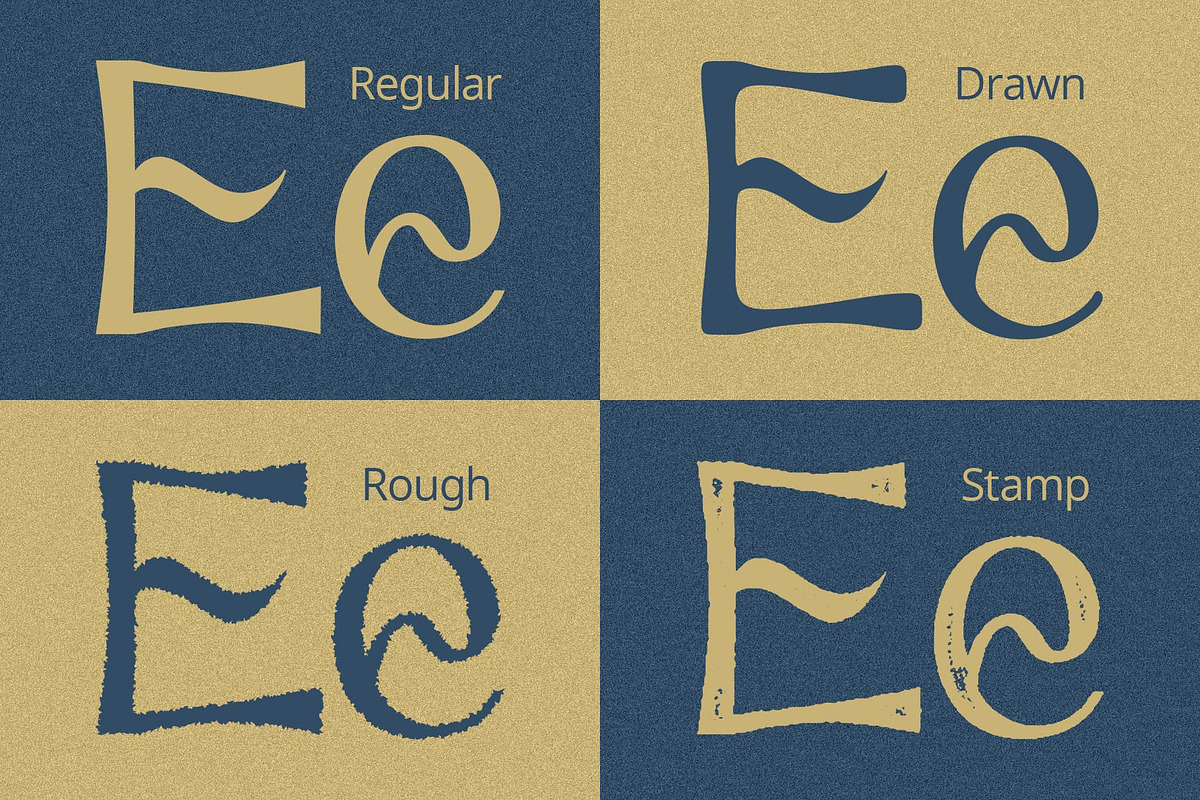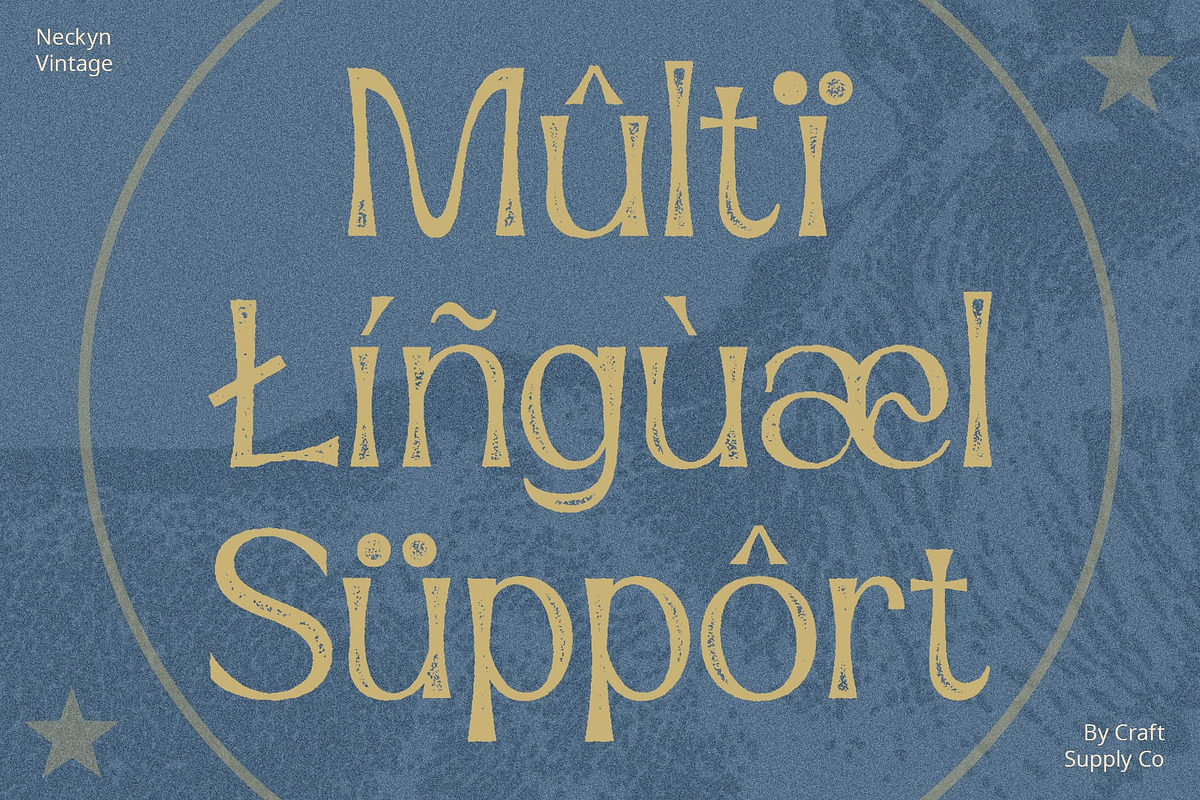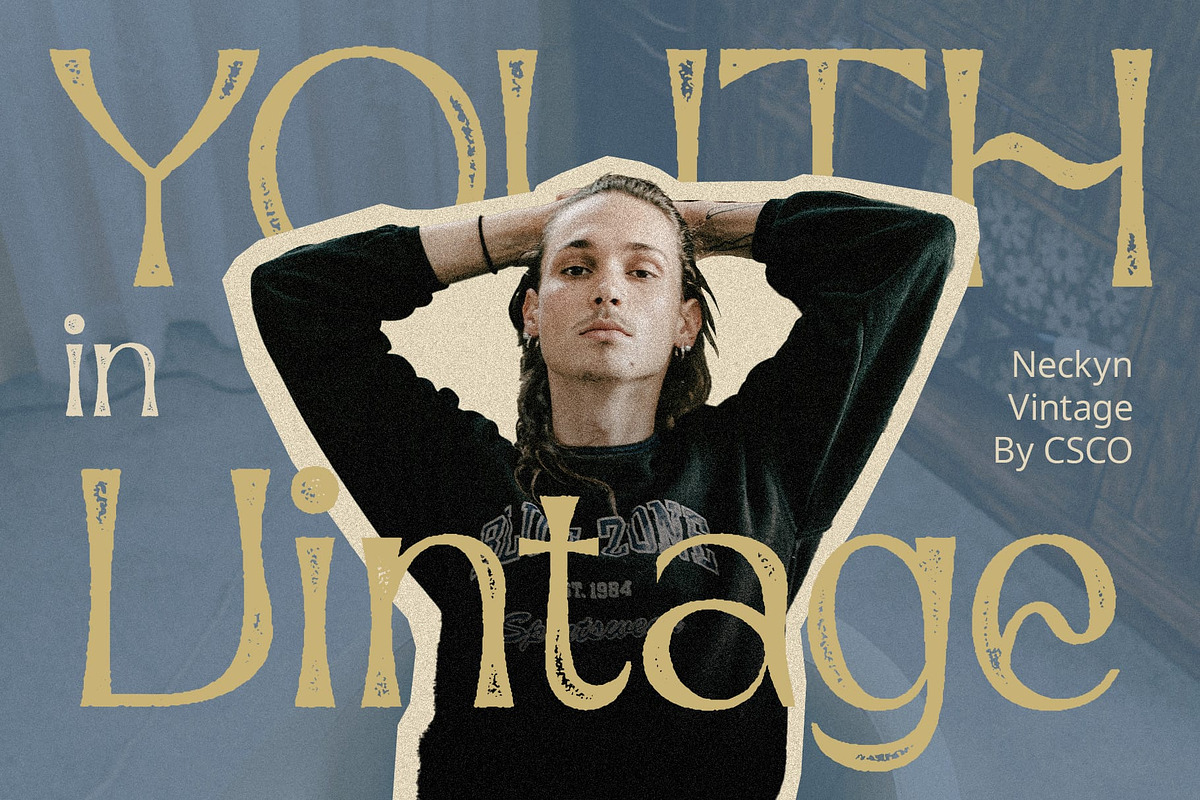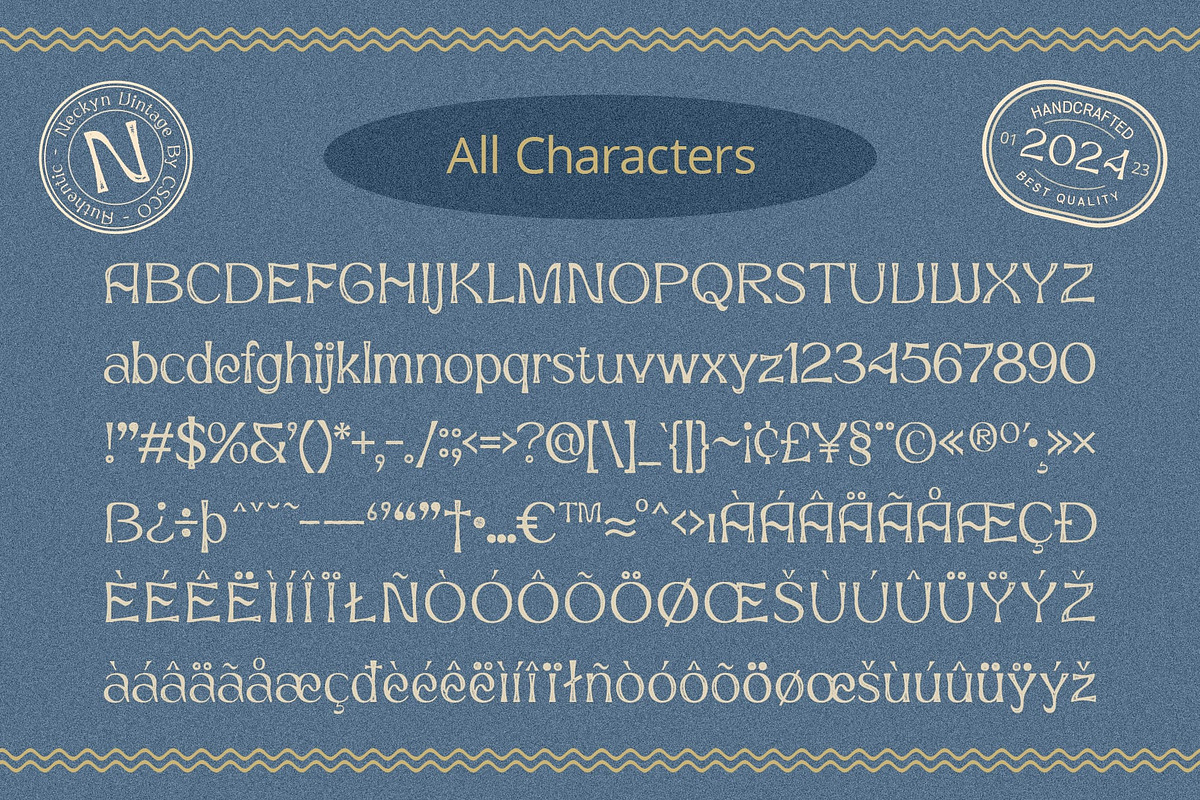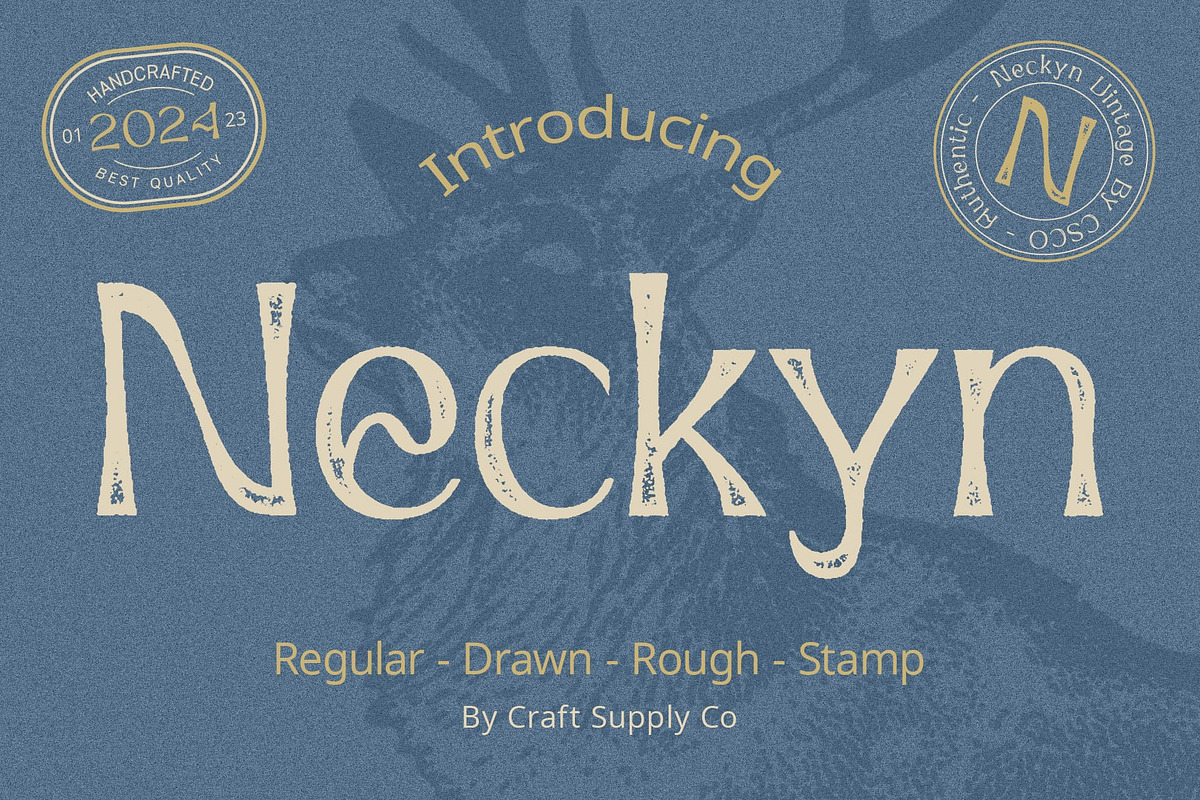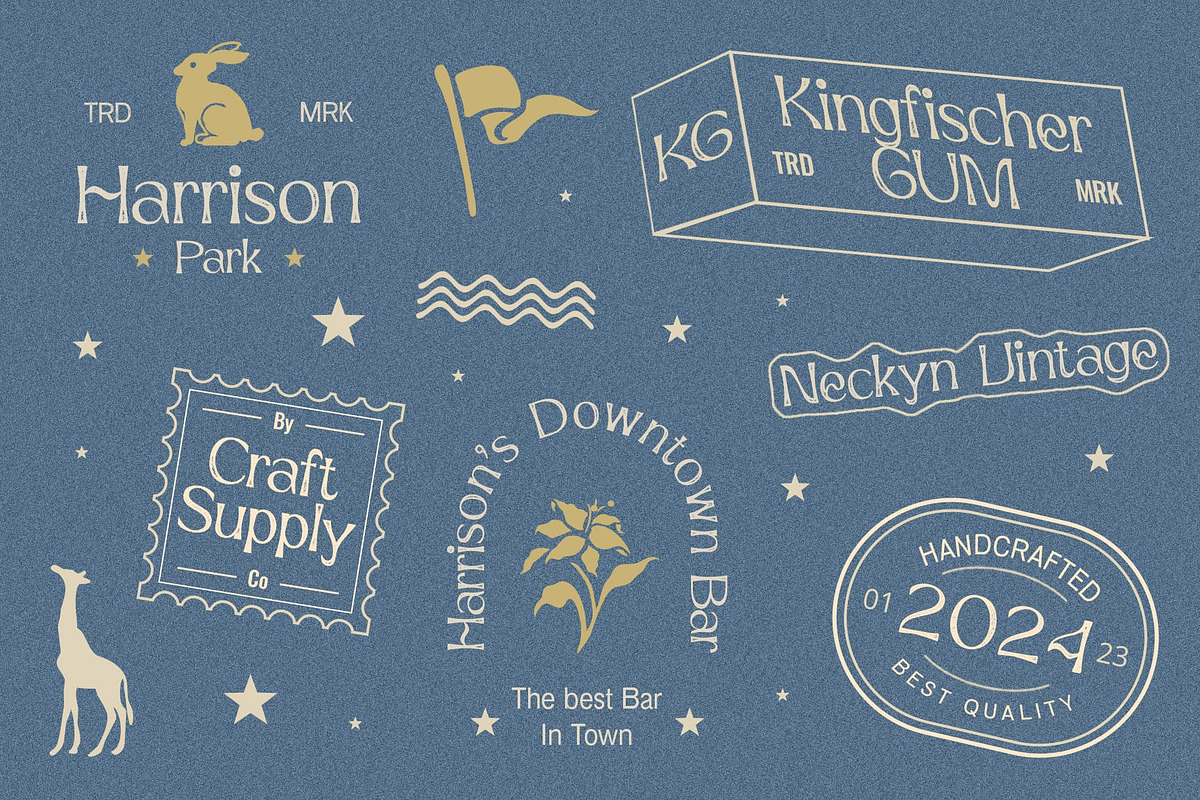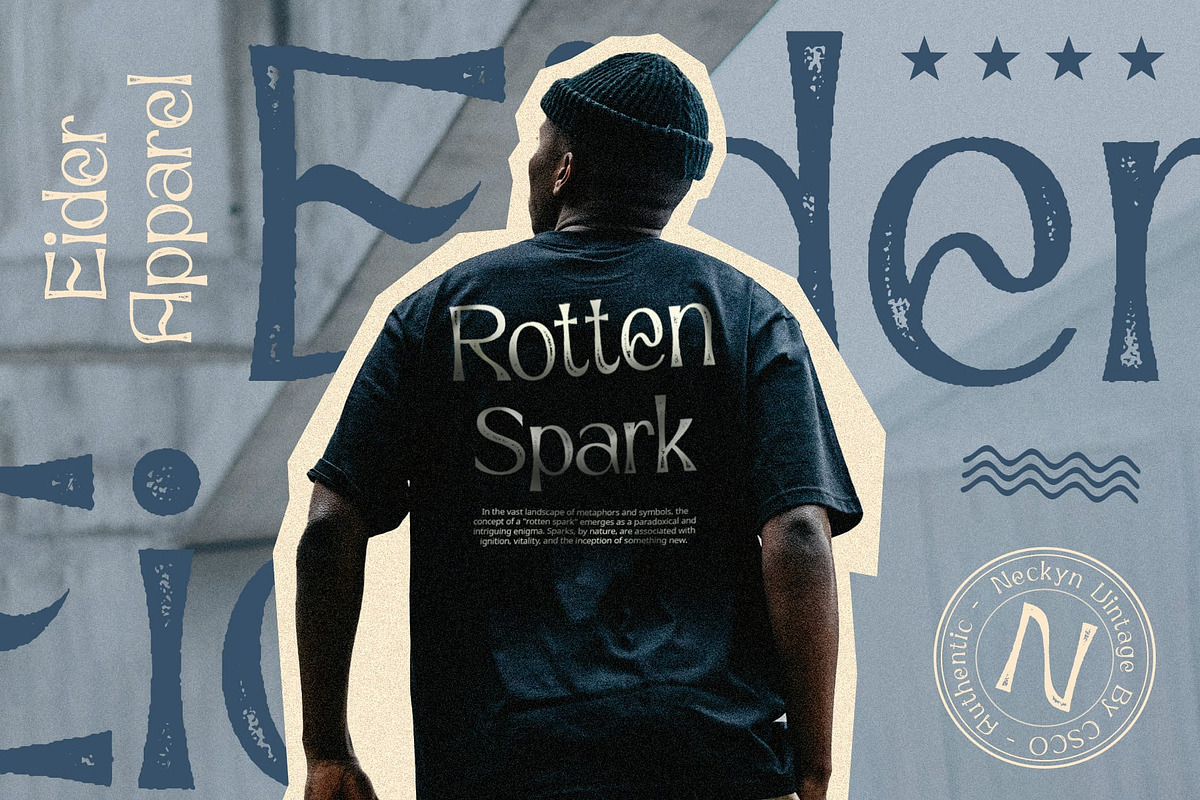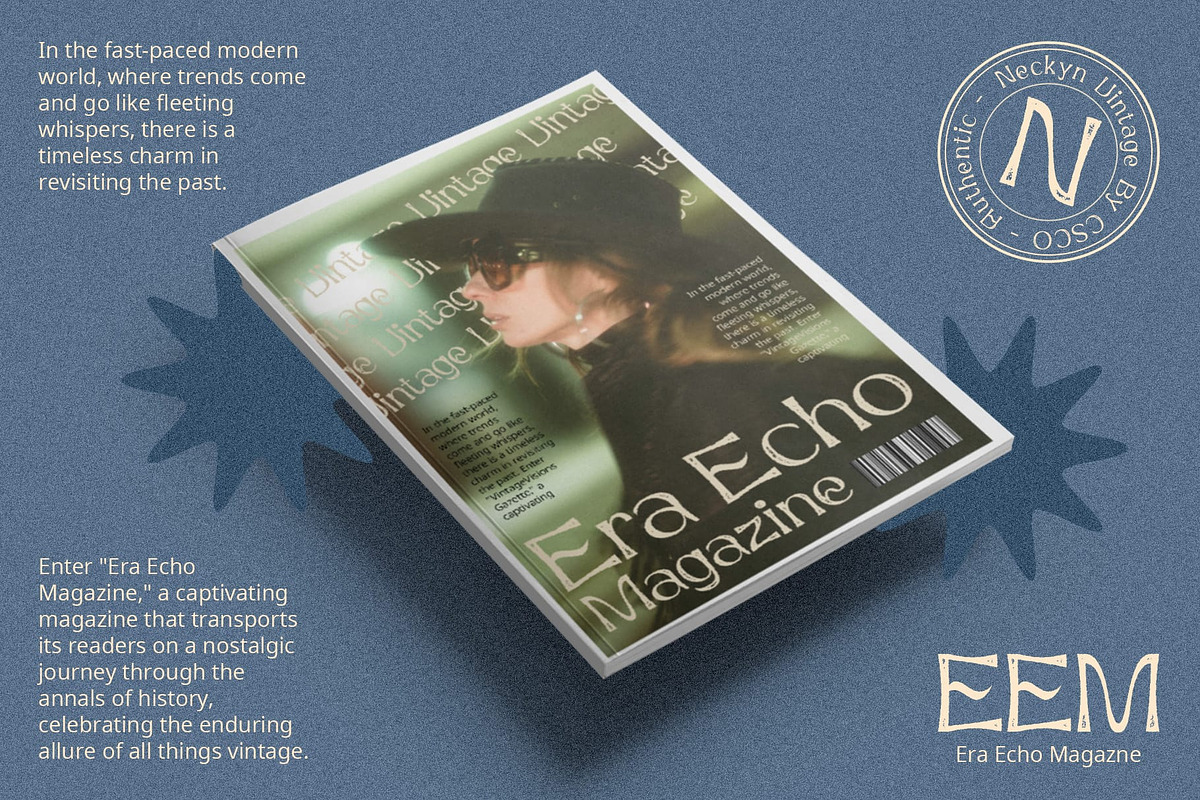
Neckyn Vintage
Neckyn Vintage: Embracing Trippy Vibes in Typeface Design
Whimsical Curves Unveiled Neckyn Vintage, a mesmerizing display font, draws inspiration from the whimsical and meandering aesthetics of psychedelic and trippy vibes.
Dancing Forms and Loopy Lines Every letter in Neckyn Vintage is a work of art, crafted with meandering curves that evoke a sense of free-spirited creativity. The loops and swirls dance across the canvas, creating a visually engaging experience.
A Nod to Psychedelia The font pays homage to the psychedelic movement, capturing the essence of mind-bending artistry. Each character encapsulates the spirit of the ’60s and ’70s, transporting your designs to a groovy, retro dimension.
Trippy Typography for Versatile Designs While Neckyn Vintage is a nod to the past, its versatility knows no bounds. Perfect for a spectrum of design needs, from event posters to album covers, it infuses a touch of eccentricity into every project.
Conclusion: A Kaleidoscopic Typeface Adventure Neckyn Vintage invites you on a kaleidoscopic journey through type, where each character is a brushstroke of creativity. Elevate your designs with the whimsical charm of this font, turning ordinary projects into psychedelic masterpieces.
- Neckyn Regular
- Neckyn Drawn
- Neckyn Rough
- Neckyn Stamp